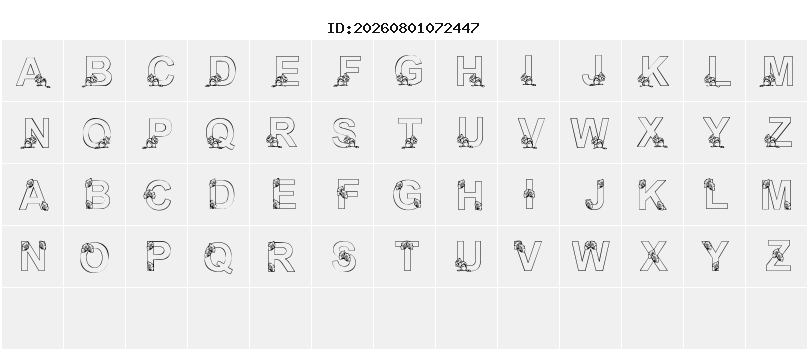
• Font Name: LMS Nuts About Squirrels
LMS Nuts About Squirrels.ttf is a modern, elegant sans-serif font designed for ultimate readability and visual harmony. Perfect for branding, headlines, web design, and print materials.